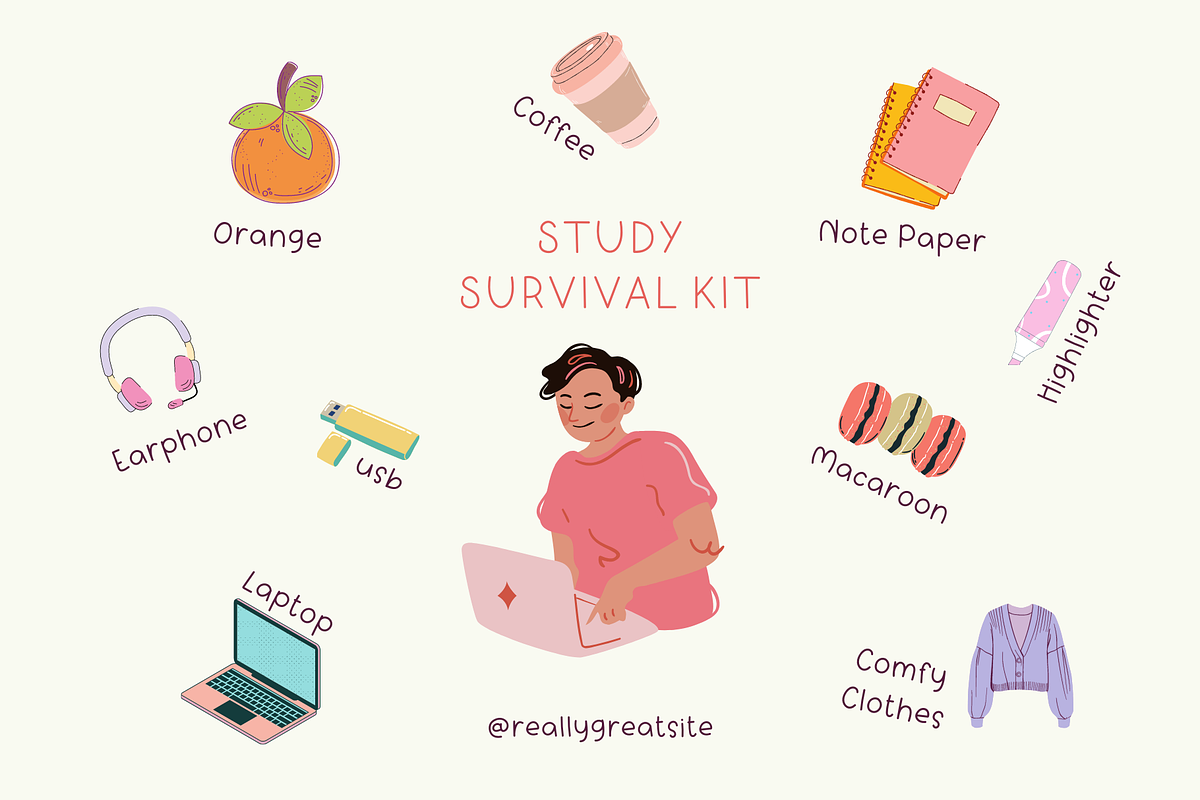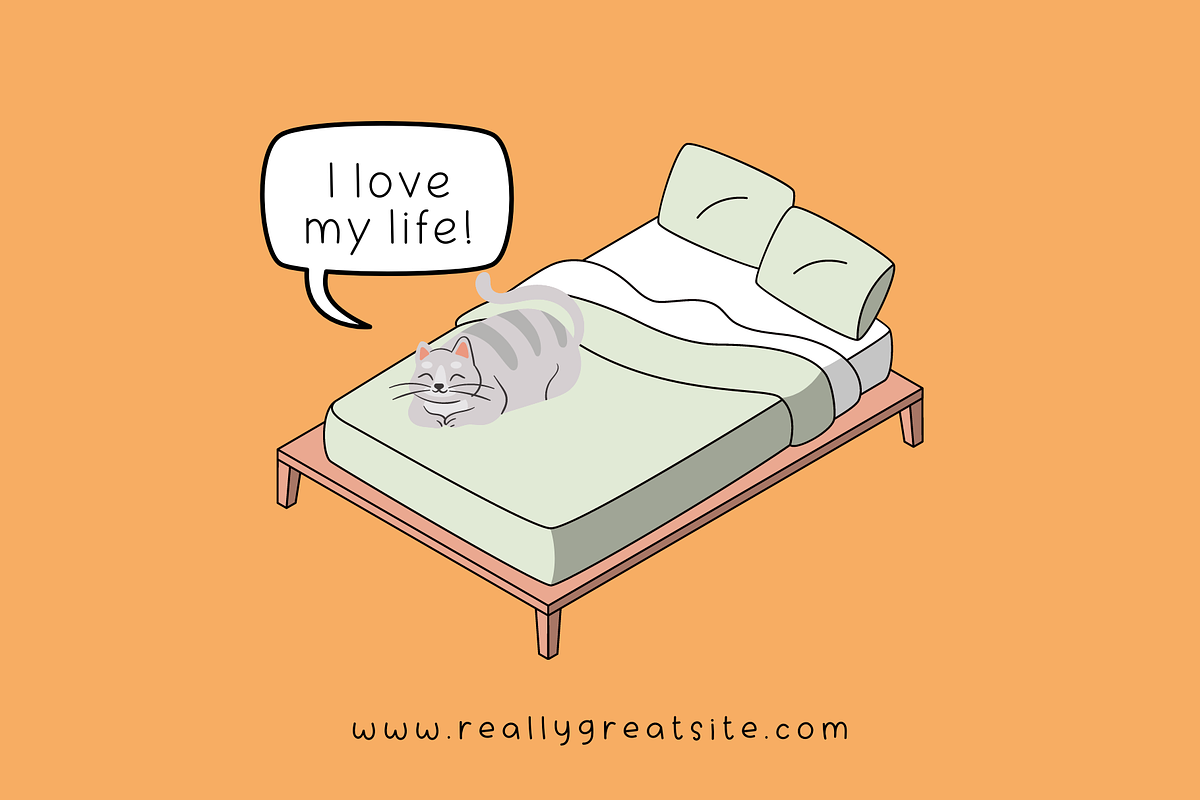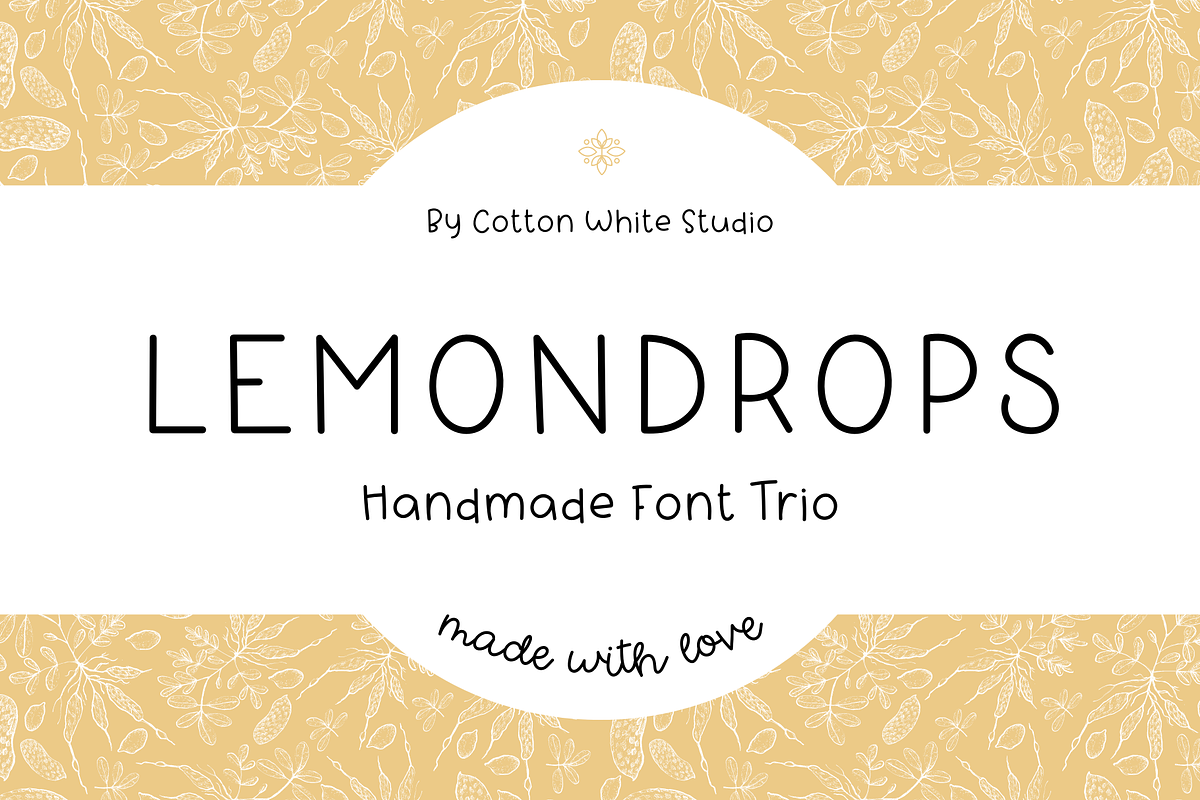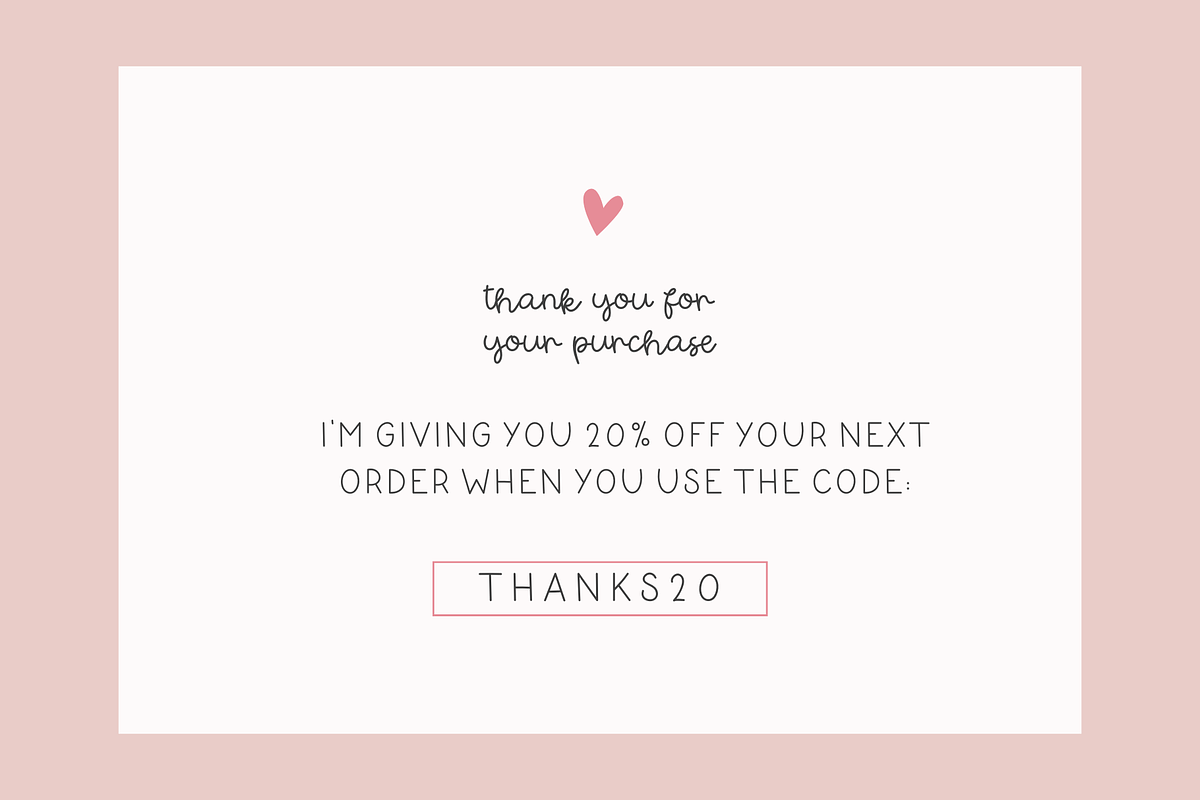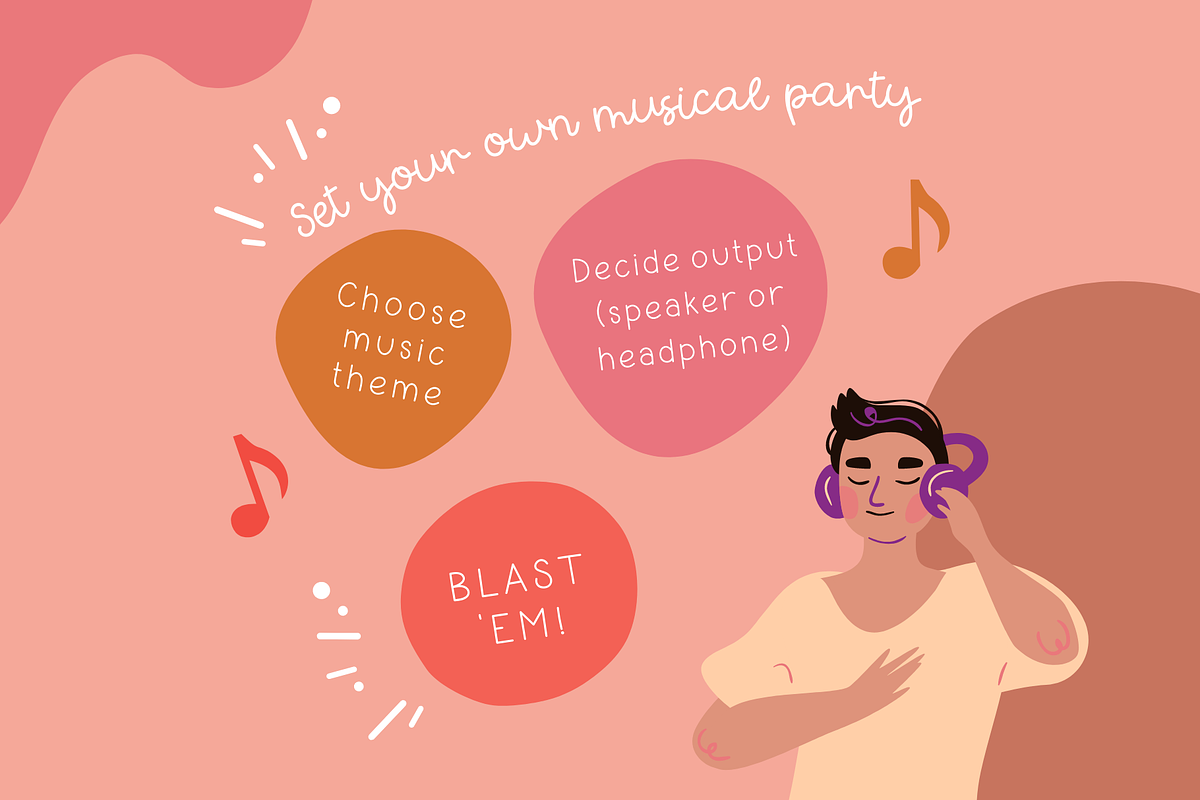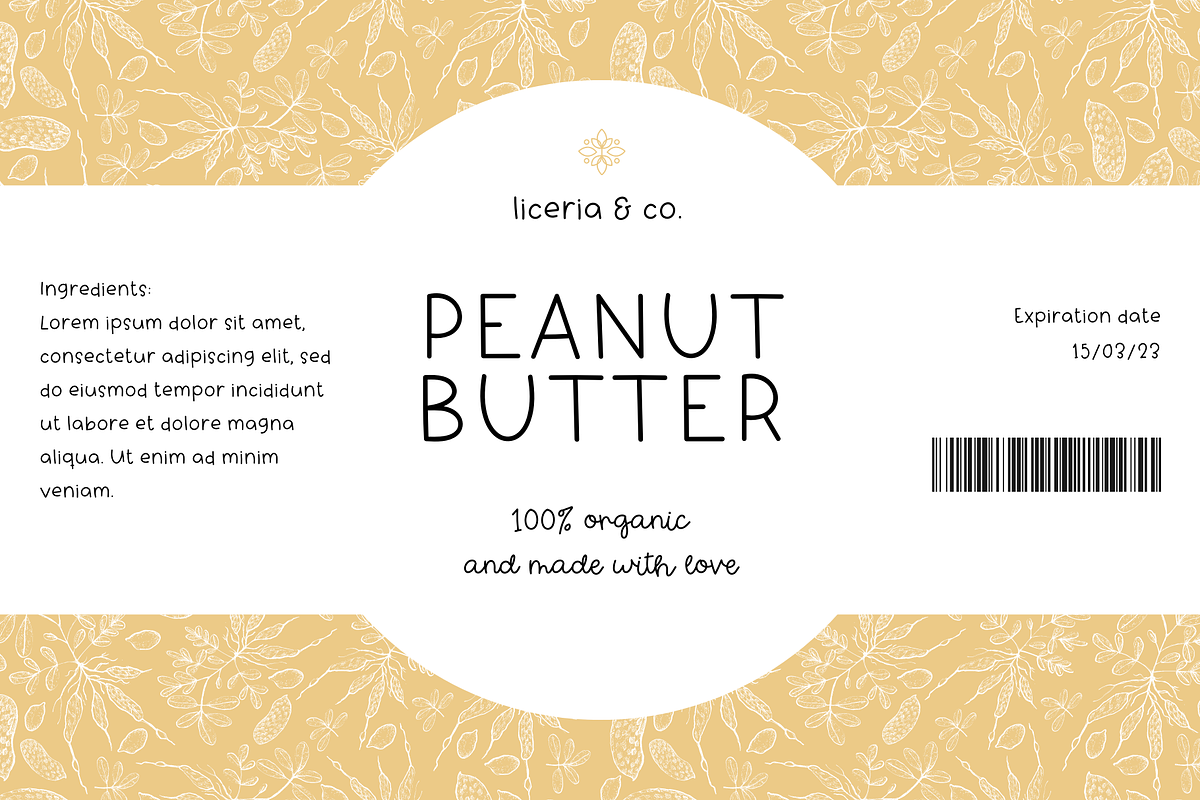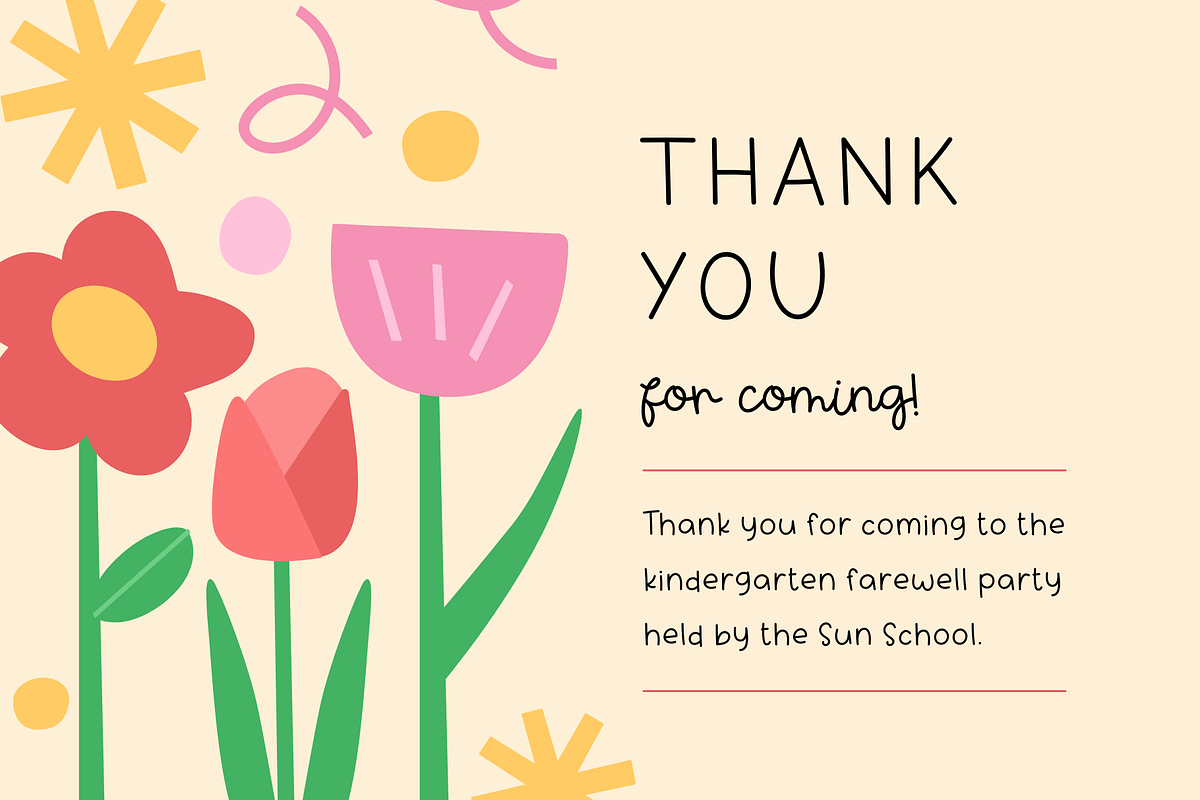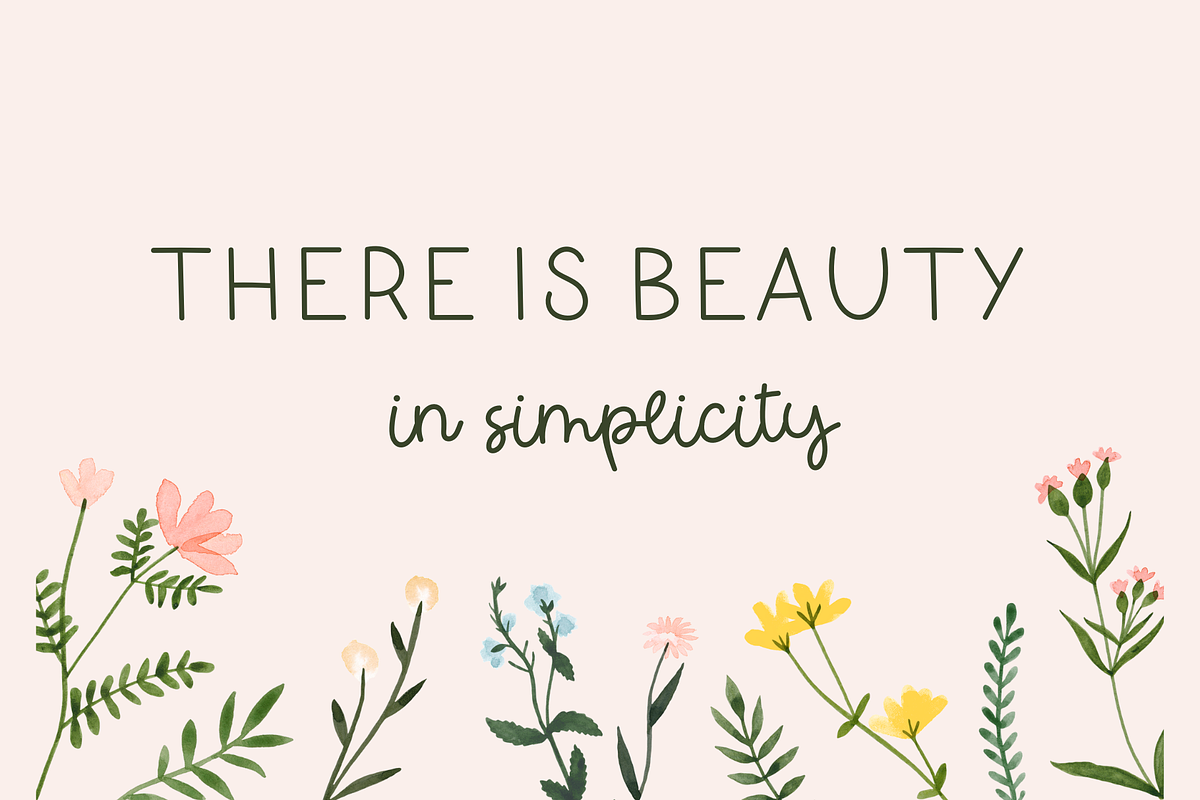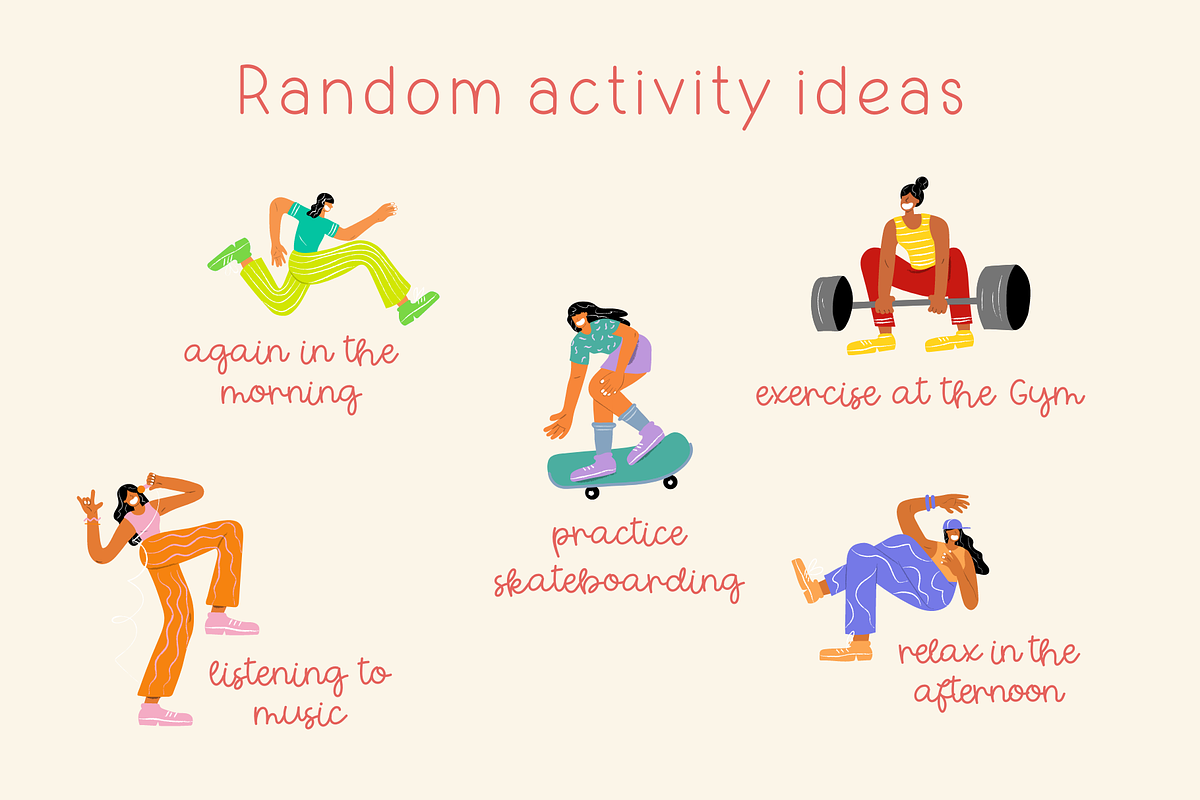
Lemondrops Font Trio
Introducing a delightful and endearing hand-lettered font trio designed to bring a touch of charm to any project. This perfect triple is ideal for creating a casual and inviting atmosphere in various applications, including greeting cards, illustrations, quotes, quaint branding, book covers, children’s books, packaging, and countless other creative endeavors.
Let your imagination run wild as you explore the endless possibilities that await with this delightful and whimsical typeface combination.